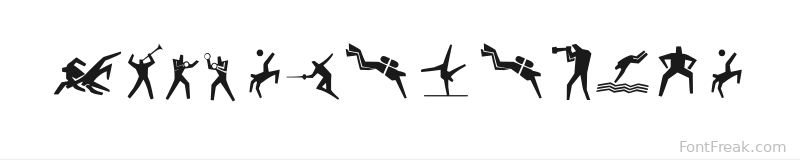
Sport 4 Ever
About Sport 4 Ever
The Sport 4 Ever font by Galdino Otten Fonts is a unique display typeface that captures the essence of athleticism and motion. This font is characterized by its bold, dynamic strokes and playful design, making it an ideal choice for projects that celebrate sports and active lifestyles. Its thick stroke weight creates a strong visual impact, while the clean lines and intentional spacing provide readability even at larger sizes. The font features decorative elements that resemble dynamic human figures engaged in various sports, adding a lively touch that enhances its thematic focus.
Sport 4 Ever is particularly well-suited for a variety of applications. It can be effectively used in sports event posters, where its energetic design can draw attention and excite viewers. Additionally, this font works wonderfully for team jerseys, providing a spirited look that embodies team spirit. Graphic designers can also utilize it for promotional materials, such as flyers or banners for fitness clubs, making it perfect for targeting health-conscious audiences. Furthermore, small business owners in the sports industry can use this font for branding purposes, ensuring their materials convey a fun and active vibe.
What sets the Sport 4 Ever font apart is its distinctive ability to combine functionality with flair, making it not only visually appealing but also versatile for various design needs. Whether you’re looking to infuse energy into a project or create an engaging visual narrative, the Sport 4 Ever font free download offers a refreshing option for any creative endeavor.